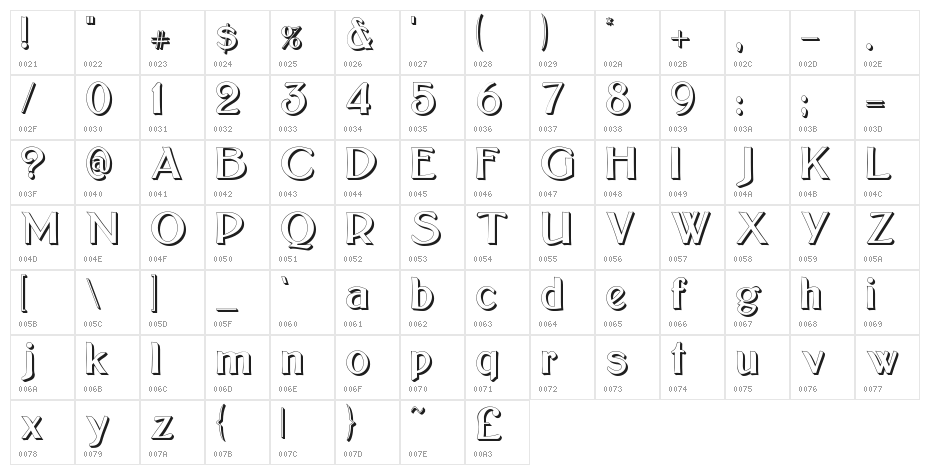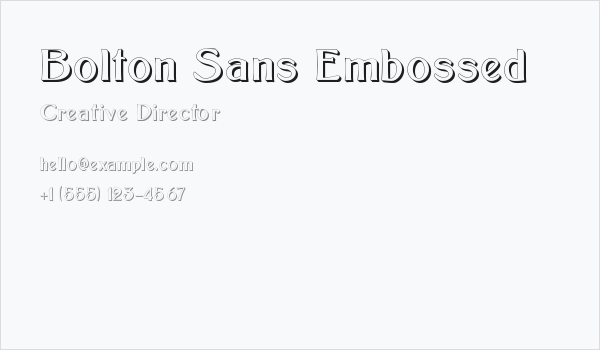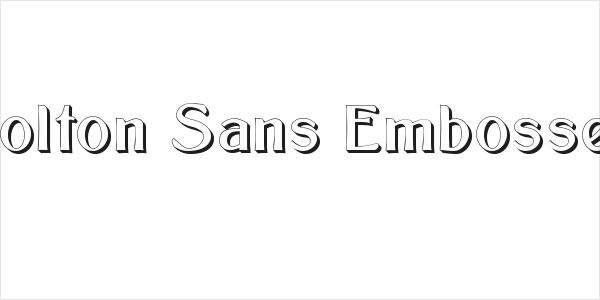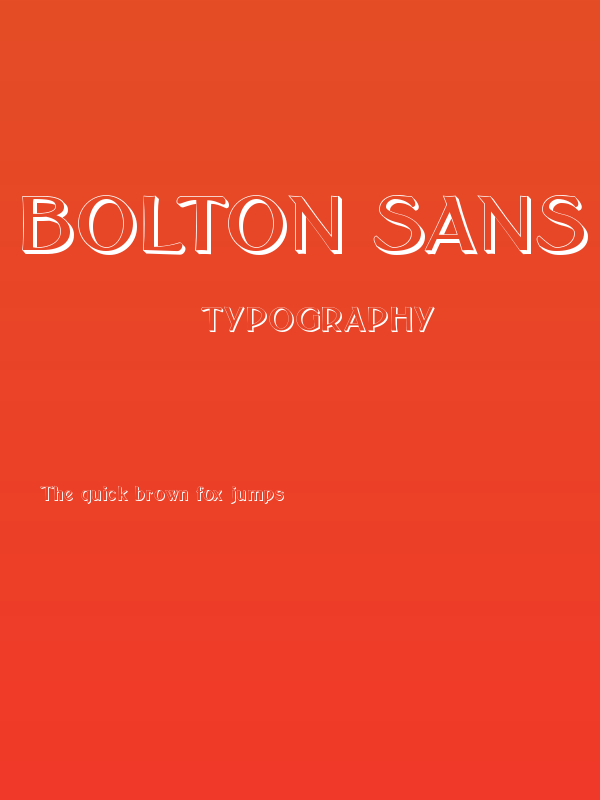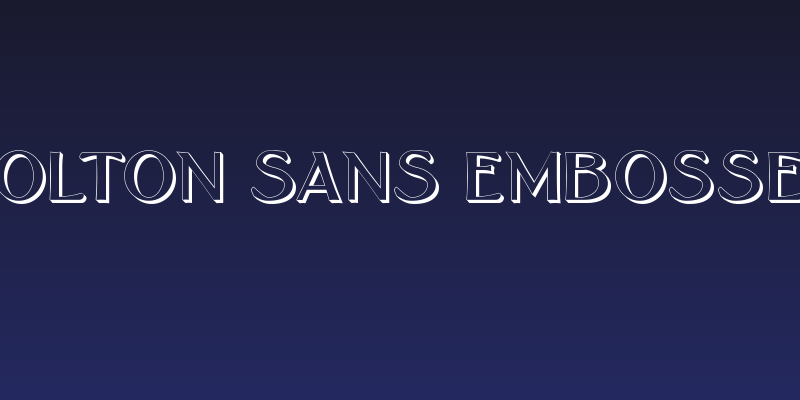
Bolton Sans Embossed Font
Bolton Sans Embossed Description
This font features a bold, embossed style that gives a three-dimensional effect to each character. The letters are sans-serif, providing a clean and modern look while the embossed shadow adds depth and a unique visual interest. The uppercase and lowercase letters maintain a consistent style, with rounded edges and a slightly playful appearance. The numerals and special characters are designed to match the overall aesthetic, ensuring a cohesive look across all text. This font is ideal for making a statement, with its eye-catching design that stands out in any context.
| Proposed Projects | Ideal for branding, headlines, posters, and any design project that requires a striking and modern typeface. |